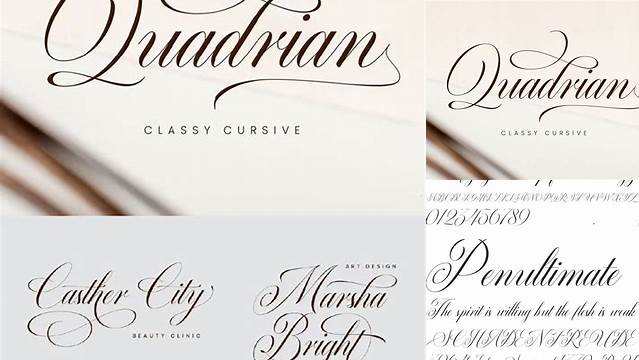
Are you on the hunt for a font that oozes elegance and adds a touch of class to your designs? Well, guys, look no further! Let's dive into the world of Quadrian, a stunning script font that's available for free download. In this article, we're going to explore what makes Quadrian so special, how you can use it, and why it might be the perfect addition to your font library. Get ready to elevate your design game!
What Makes Quadrian So Elegant?
When it comes to script fonts, Quadrian truly stands out. Its flowing lines and delicate curves create a sense of sophistication that's hard to ignore. But what exactly contributes to its elegant appeal? Let's break it down:
- Letterform Design: Quadrian's letterforms are meticulously crafted, each character designed to seamlessly connect with the next. The ascenders and descenders have a graceful sweep, adding to the overall fluidity of the font. The contrast between thick and thin strokes gives it a refined and polished look, reminiscent of traditional calligraphy. This attention to detail ensures that the font looks beautiful in both headlines and body text.
- Balance and Proportion: The balance and proportion of each letter play a crucial role in the font's overall elegance. Quadrian strikes a harmonious balance, ensuring that no single character overpowers the others. The x-height (the height of the lowercase letters) is carefully considered, making the text legible and visually pleasing. This balance extends to the spacing between letters, creating a comfortable reading experience.
- Unique Flourishes: What truly sets Quadrian apart are its unique flourishes. These subtle decorative elements add a touch of personality and charm to the font. Whether it's the delicate loops on the lowercase letters or the elegant swashes on the uppercase characters, these details elevate the font from ordinary to extraordinary. These flourishes make Quadrian perfect for projects that require a touch of sophistication and individuality.
- Versatility: While Quadrian exudes elegance, it's also surprisingly versatile. It can be used in a variety of design projects, from wedding invitations to branding materials. Its clean lines and balanced proportions make it suitable for both print and digital applications. This versatility makes Quadrian a valuable asset for designers who need a font that can adapt to different styles and contexts.
Where to Use Quadrian
Okay, so you're probably thinking, "This font sounds amazing, but where can I actually use it?" Great question! Quadrian's elegant script style makes it perfect for a wide array of projects. Here are just a few ideas to get your creative juices flowing:
- Wedding Invitations: Instantly add a touch of romance and sophistication to your wedding stationery with Quadrian. Its elegant script is perfect for names, dates, and heartfelt messages. Imagine your names beautifully calligraphed on the invitation, setting the tone for a memorable occasion.
- Logos and Branding: Looking to create a brand identity that exudes luxury and refinement? Quadrian can help you achieve just that. Its elegant script is ideal for logos, watermarks, and other branding materials. Think of high-end boutiques, artisanal products, or personal brands seeking a touch of sophistication.
- Greeting Cards: Add a personal touch to your greeting cards with Quadrian. Whether it's a birthday card, a thank you note, or a holiday greeting, its elegant script will make your message stand out. The font's versatility allows you to create cards that are both beautiful and heartfelt.
- Website Headers: Make a lasting impression with your website headers by using Quadrian. Its elegant script will draw visitors in and create a sense of sophistication. Use it to highlight key messages, announce promotions, or simply add a touch of personality to your site. A well-designed header can make all the difference in capturing your audience's attention.
- Social Media Graphics: Elevate your social media presence with Quadrian. Use it to create eye-catching graphics for your posts, stories, and ads. Its elegant script will help you stand out from the crowd and create a cohesive brand aesthetic. Whether you're promoting a product, sharing an inspirational quote, or announcing an event, Quadrian can help you make a statement.
Conclusion: Elevate Your Designs with Quadrian
So, there you have it! Quadrian is an elegant script font that can elevate your designs and add a touch of sophistication to your projects. Whether you're designing wedding invitations, logos, or social media graphics, Quadrian is a versatile and beautiful font that's sure to impress. And the best part? It's available for free download! So go ahead, give it a try, and see how Quadrian can transform your designs. Happy designing, guys!